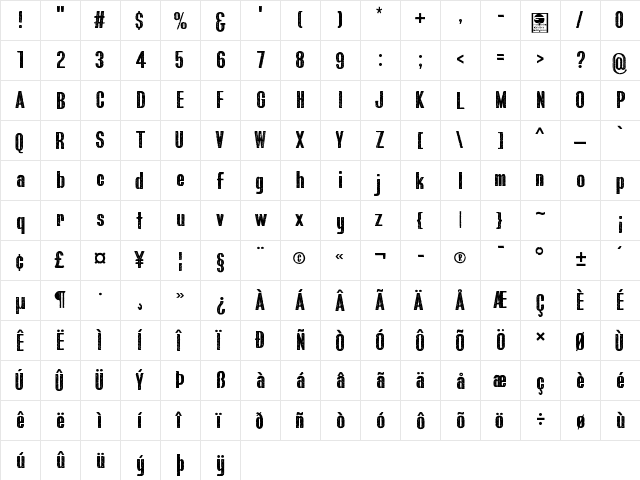
Bluefish ERODED DEMO Regular
| Foundry | StudioTypo |
| Designer | Mehmet Abac |
Design Context for Bluefish ERODED DEMO Typeface
Bluefish ERODED DEMO embraces imperfection — its rough, textured character adds raw authenticity to designs that want to feel lived-in and unconventional.
Suited to punk-influenced zines, underground music branding, streetwear, and raw, anti-corporate design.